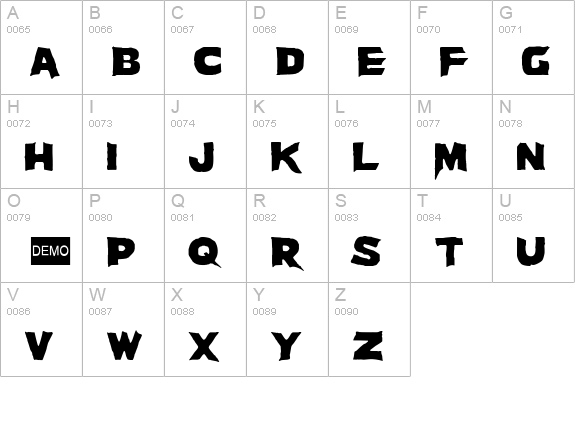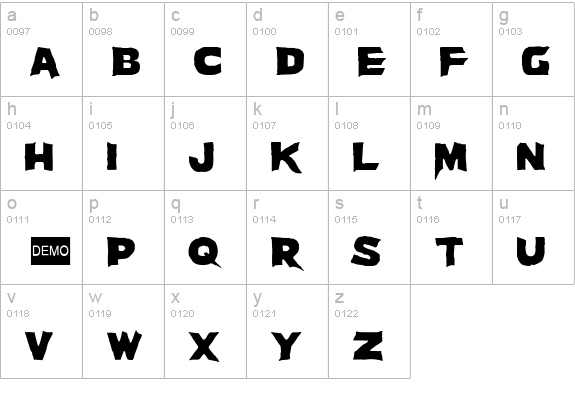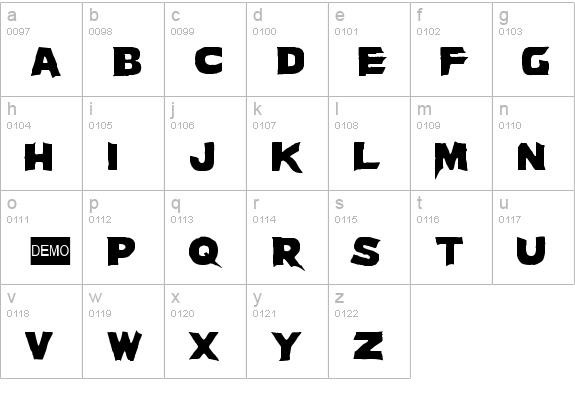
Massacre DEMO Font Details
Introducing Massacre DEMO, a captivating and bold font that exudes a sense of power and intensity. This unique typeface effortlessly combines sharp edges with dramatic curves, creating a visual impact that demands attention. With its strong and forceful appearance, Massacre DEMO is perfect for projects that require a touch of edginess. Whether you're designing a logo, creating eye-catching headlines, or crafting impactful social media posts, this font is sure to leave a lasting impression. But what sets Massacre DEMO apart from other fonts is its availability - it's completely free to download! You read that right. You can easily obtain this striking font at FontsMarket.com, where it is freely available for all your creative endeavors. Don't miss out on the opportunity to elevate your designs with Massacre DEMO. Download it today and unleash its raw energy and captivating presence. Discover the power of this font and let your creativity soar to new heights.